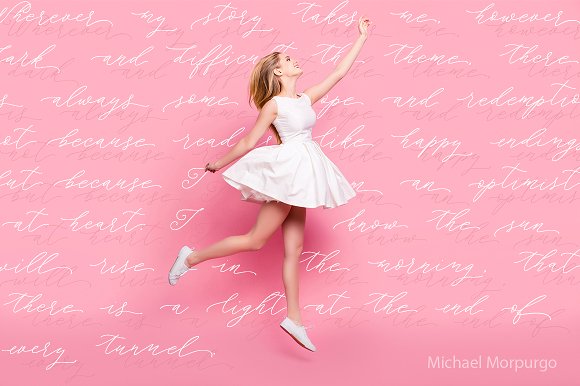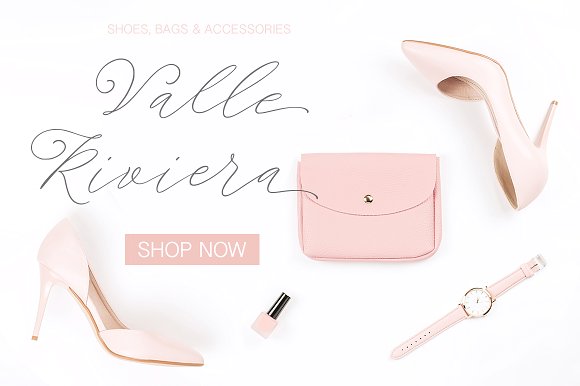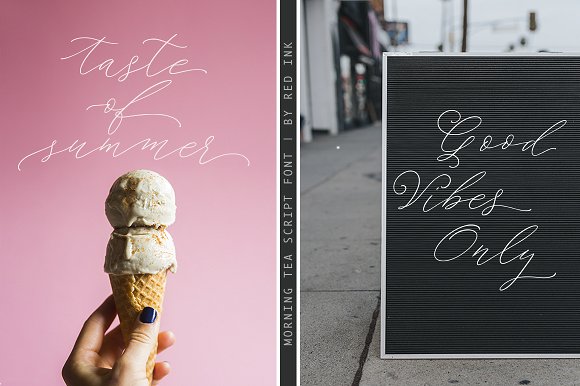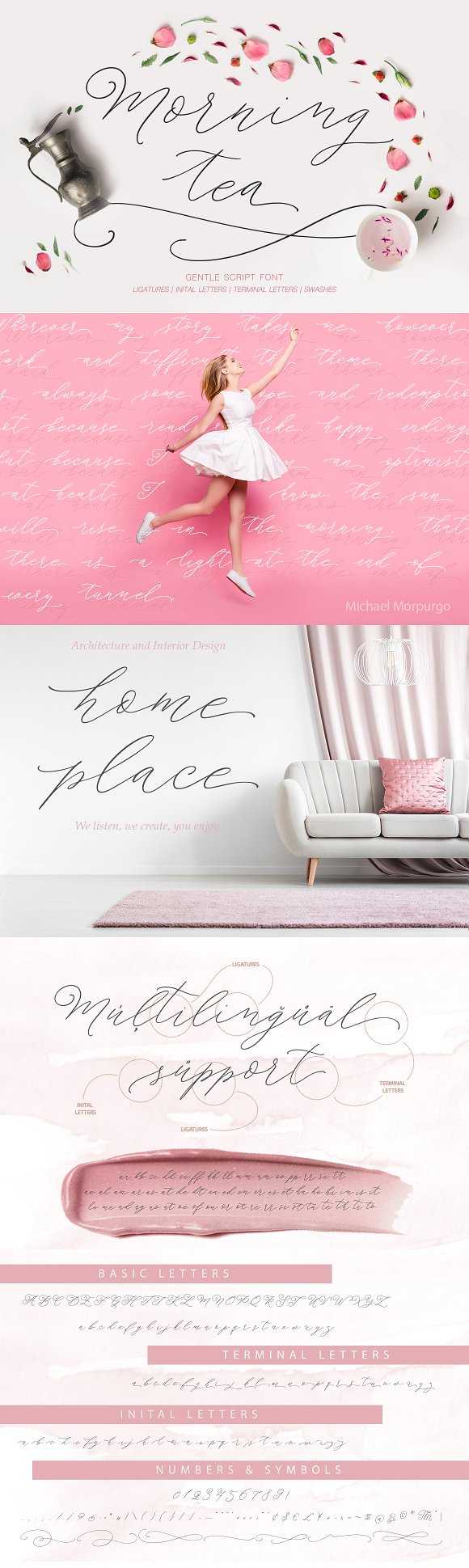
Morning tea. Script font.
Morning tea is gentle signature hand drawn font. Tons of ligatures, initial and terminal letters for all lowercase glyphs help to imitate handwriting like never before. This font is all filled with calligraphic magic, just make sure that OTF is enabled and just type your texts – you’ll see the incredible font organicity and variety of letters and combinations.